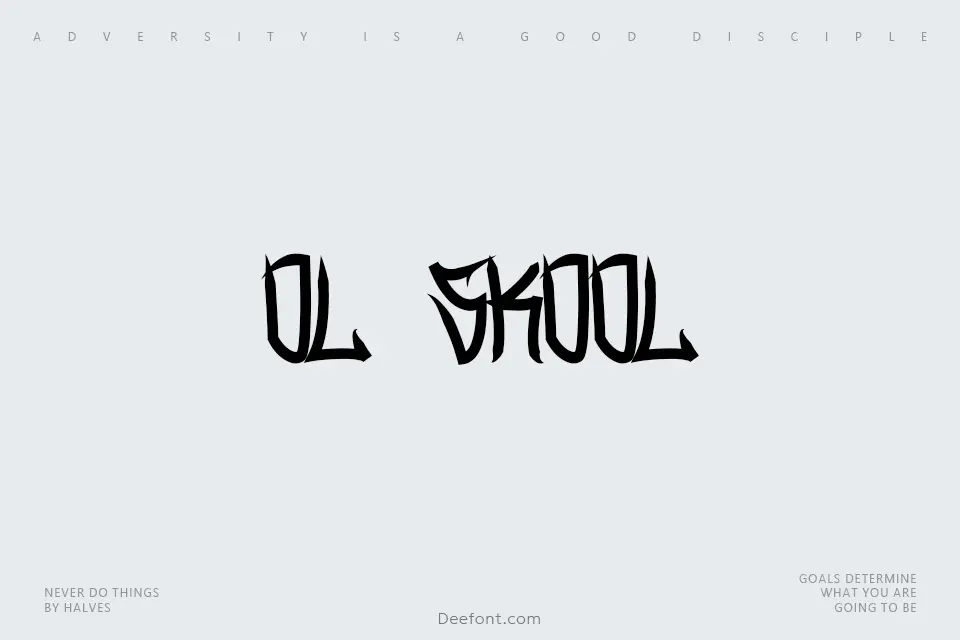
Ol Skool Font
Ol Skool is a bold, graffiti-inspired font featuring sharp angles and dynamic strokes that capture the essence of street art. With its jagged edges and energetic design, this typeface delivers an edgy urban aesthetic perfect for posters, album covers, and branding projects requiring visual impact and artistic flair.